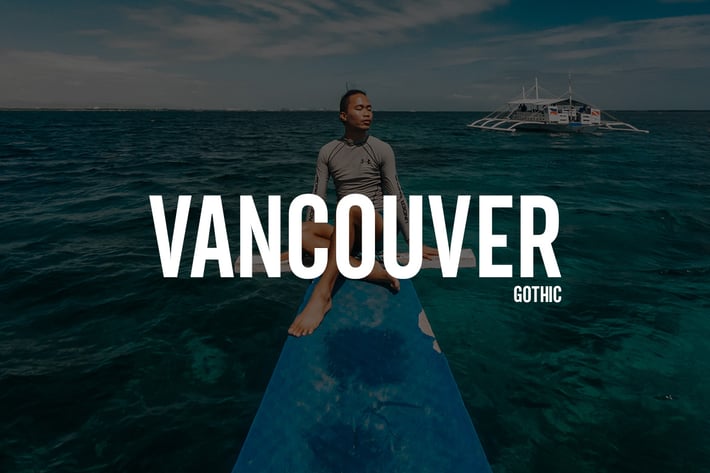
Vancouver - Gothic Typeface + WebFonts
Vancouver - Gothic Typeface V2.0
Introducing our brand new Typeface Vancouver - Gothic. This beautiful and professional typeface suitable for Film Posters, headlines, Block letter, Subheading, Logo Designs, Big Banners. Classic & Decorative Typography Web Designs.
Font Designed and Crafted by Webhance Studio.